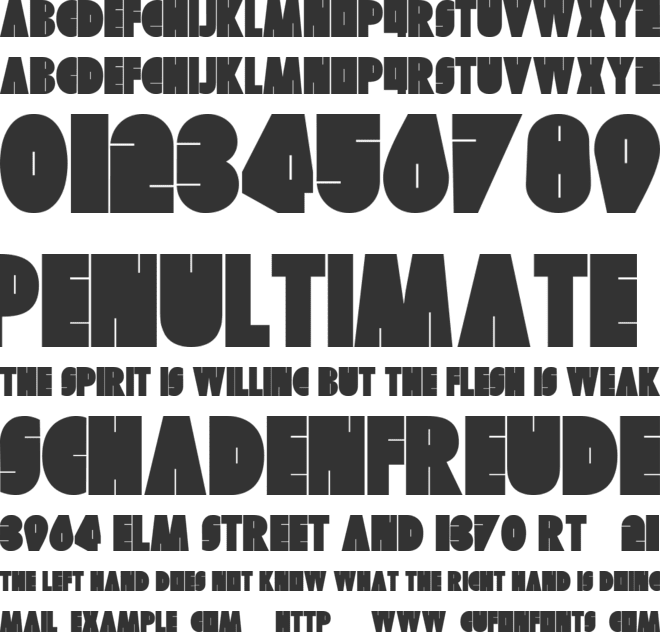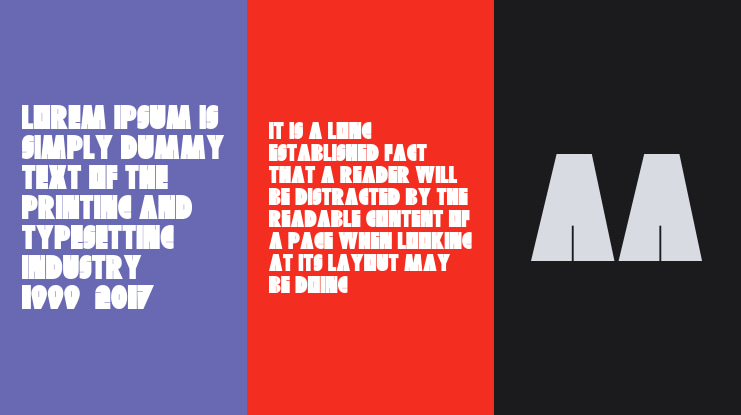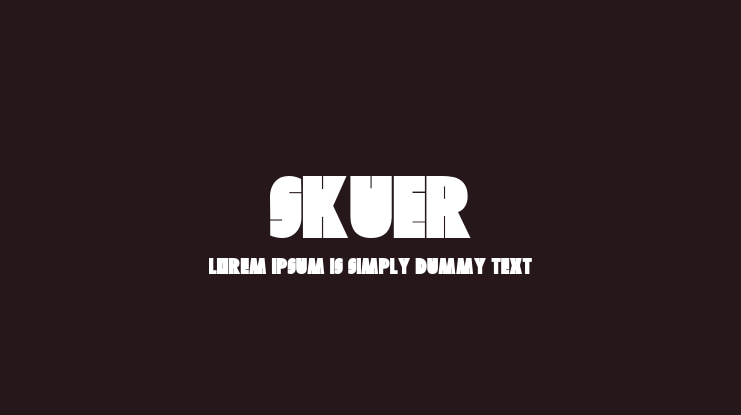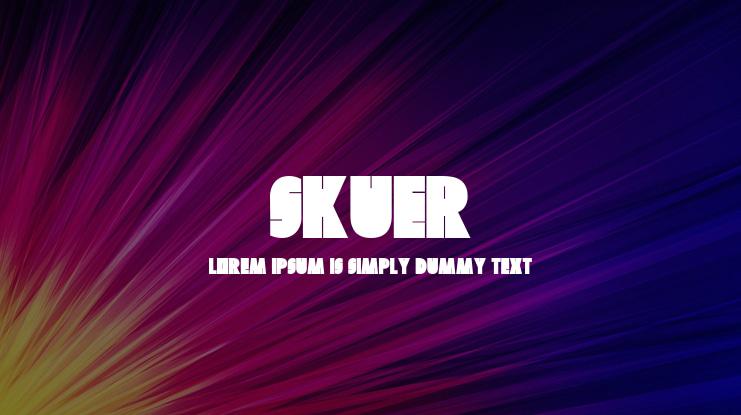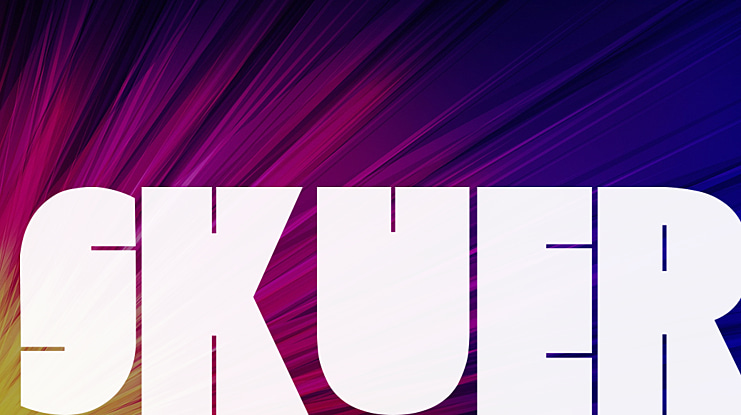
Skuer Font
Valdet Hajdari
Skuer is a free typeface created in October 2012 and based on a "urban" style. The typeface contains all main characters (from A to Z - capitals & lowercases are the same ) and numbers (from 0 to 9).
The following pictures show you how are the height and the width of the typeface and some examples on how it could be included on a logo, photo or anything else.